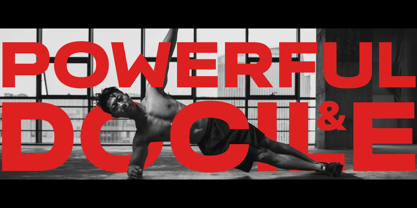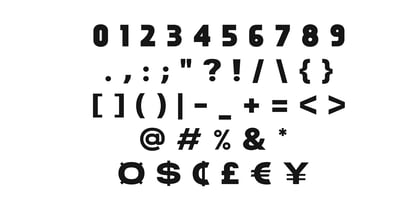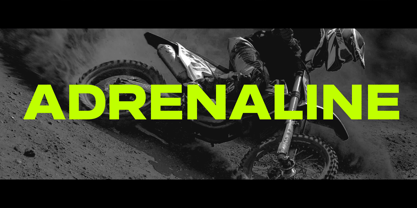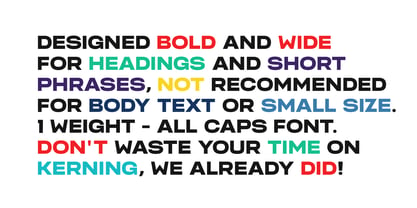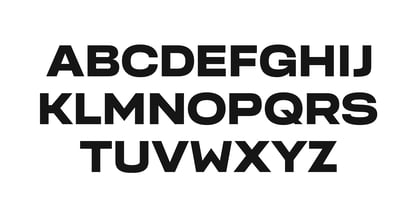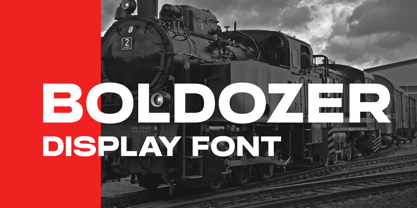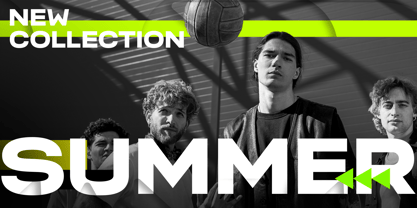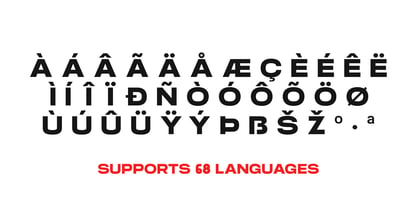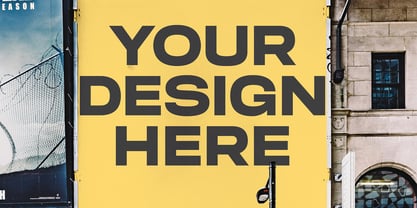
Boldozer
by Moataz Mady
The Boldozer Font Family was designed by Moataz Mady and published by Moataz Mady. Boldozer contains 1 styles. More about this family
Boldozer is an assertive display typeface designed for high-impact use, such as headings, social media graphics, and design projects, and is not intended for use as body text or at small sizes. The style within the file is specified as Boldozer Black, indicating a heavy or extra-bold weight designed to maximize visual presence. No kerning is needed.
Designers: Moataz Mady
Foundry: Moataz Mady